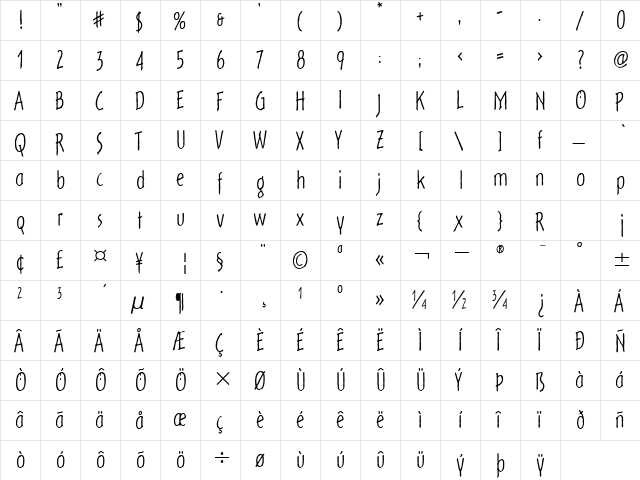
OutoftheFridgeITC Light
Design Context for OutoftheFridgeITC Typeface
OutoftheFridgeITC is a composed and adaptable typeface that performs quietly and consistently across a wide range of design contexts. Its slender proportions lend an understated elegance to any composition.
Pro Tip: Use OutoftheFridgeITC in both headline and body roles to test its range before committing to a single application.